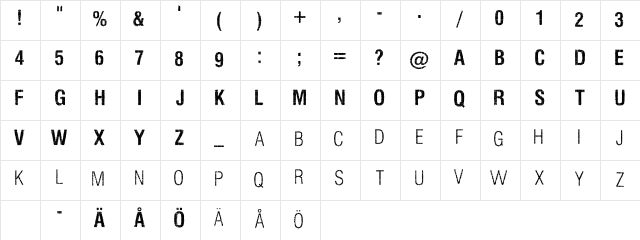
Silent Hell of Cheryl Regular
Design Context for Silent Hell of Cheryl Typeface
Silent Hell of Cheryl offers clean, dependable letterforms without strong stylistic allegiance, making it a practical choice for designers who need flexibility.